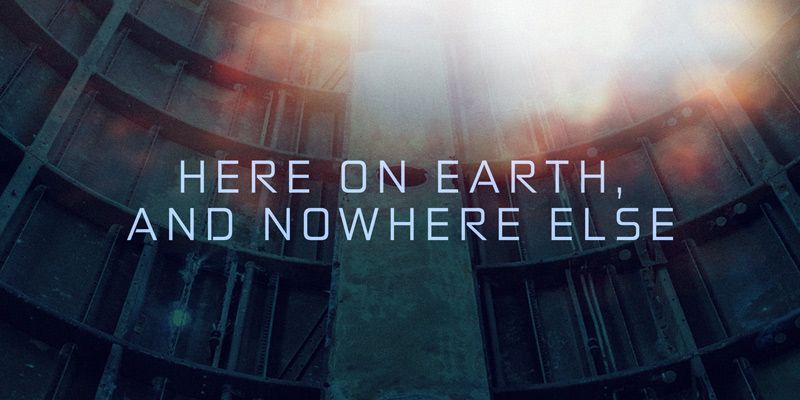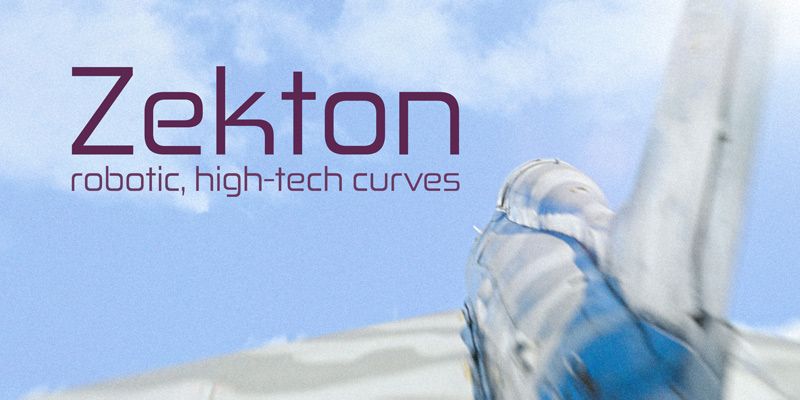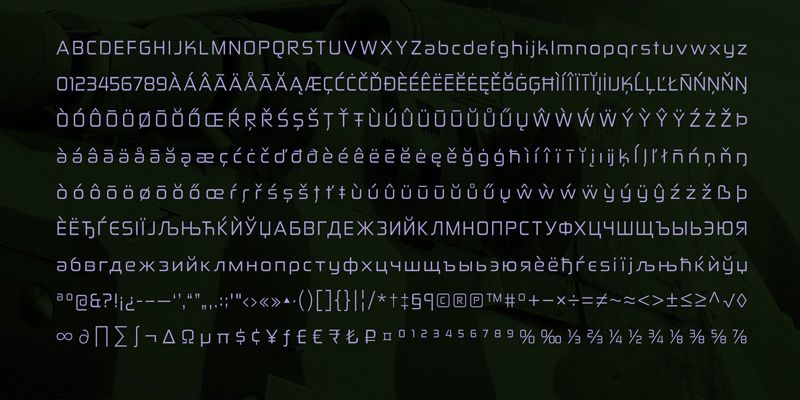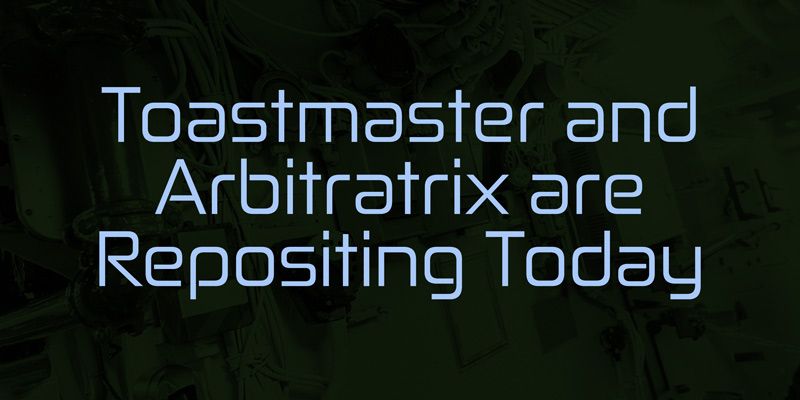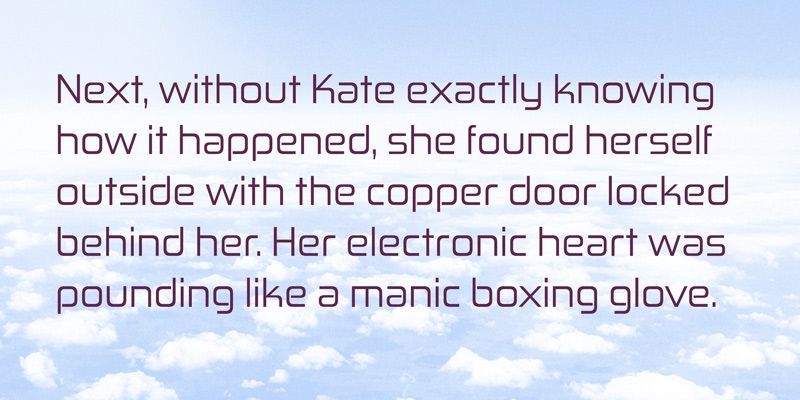
Zekton wraps squared curves and modular construction in an optimistic, turn-of-the-millennium technology mood. Its shapes suggest portable electronics and everyday futurism rather than a severe machine interface. A short name can feel engineered and friendly at once, useful for consumer devices, arcade-inspired graphics, music equipment, product packaging, and event titles. Its square rhythm can connect a series of products even when the wording changes. Bright color or clean hardware imagery brings out its playful technical character.